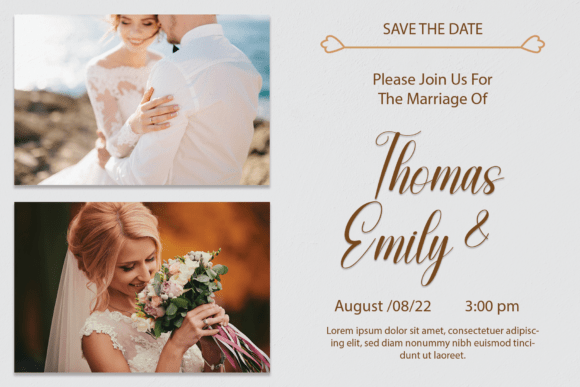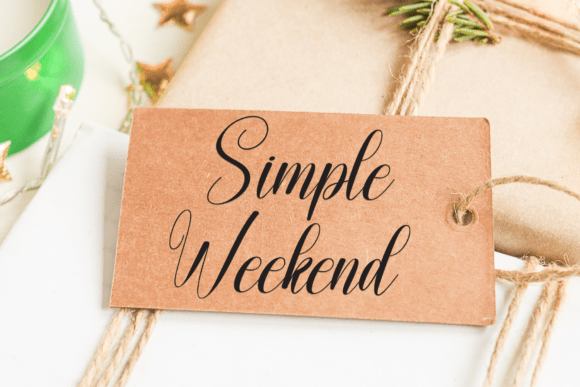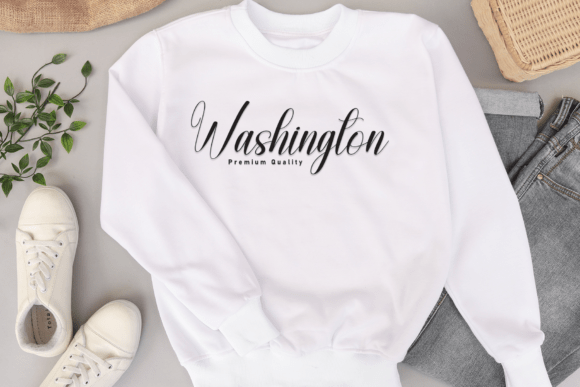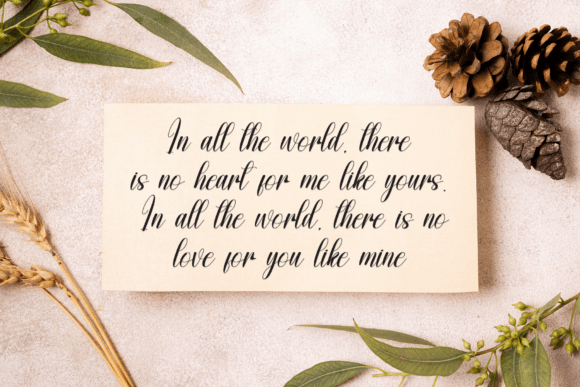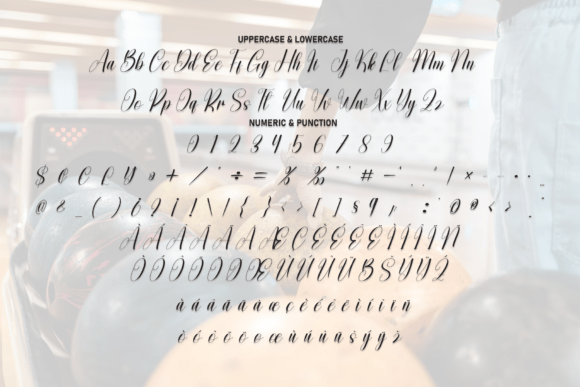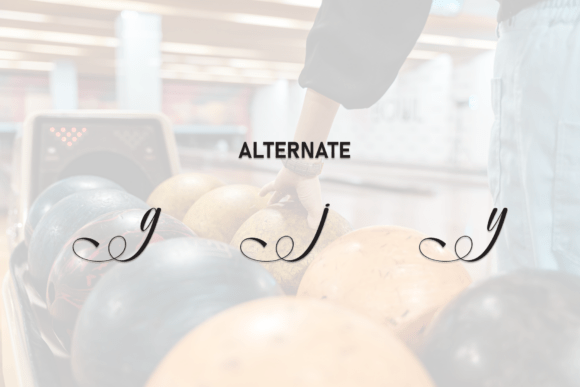
The Charming Allure of Bowling Font: A Designer’s Delight
I’ll never forget the time I was working on a wedding invitation project, and my client asked for a font that was “fun, playful, and romantic.” I scoured the internet, tried out countless fonts, but nothing seemed quite right. That was until I stumbled upon Bowling Font. Its charming, handwritten display instantly won me over, and I knew I had found the perfect fit. In this article, I’ll share my experience with Bowling Font, its unique features, and how you can make the most of it in your design projects.
As a designer, I’m always on the lookout for fonts that can add a touch of personality to my projects. Bowling Font has become a favorite of mine, and here’s why:
• ✨ Warm and Friendly: Bowling Font exudes warmth and friendliness, making it perfect for creating enchanting wedding invitations, delightful cards, or any design project that requires a personal touch.
• ✅ Playful and Fun: This adorable font breathes life into your design, adding a touch of fun and whimsy that’s sure to delight your audience.
• 💕 Unique Charm: Bowling Font’s distinctive character makes it stand out from more traditional fonts, giving your design a unique edge.
Of course, no font is perfect, and Bowling Font has a few quirks:
• 🤔 Limited Formality: While Bowling Font is perfect for informal designs, it may not be the best choice for more formal projects, such as business reports or academic papers.
• ⚠️ Legibility at Small Sizes: Like many script fonts, Bowling Font can be tricky to read at very small sizes. Be sure to test it in your design to ensure it’s legible.
Bowling Font was inspired by the classic, hand-painted signs you’d find at a vintage bowling alley. The designer wanted to capture the fun, playful spirit of those signs and create a font that would bring joy to designers and their audiences. With its charming, handwritten display, Bowling Font is sure to delight anyone who sees it.
What type of projects is Bowling Font best suited for? Bowling Font is perfect for informal designs, such as wedding invitations, cards, and other creative projects that require a personal touch.